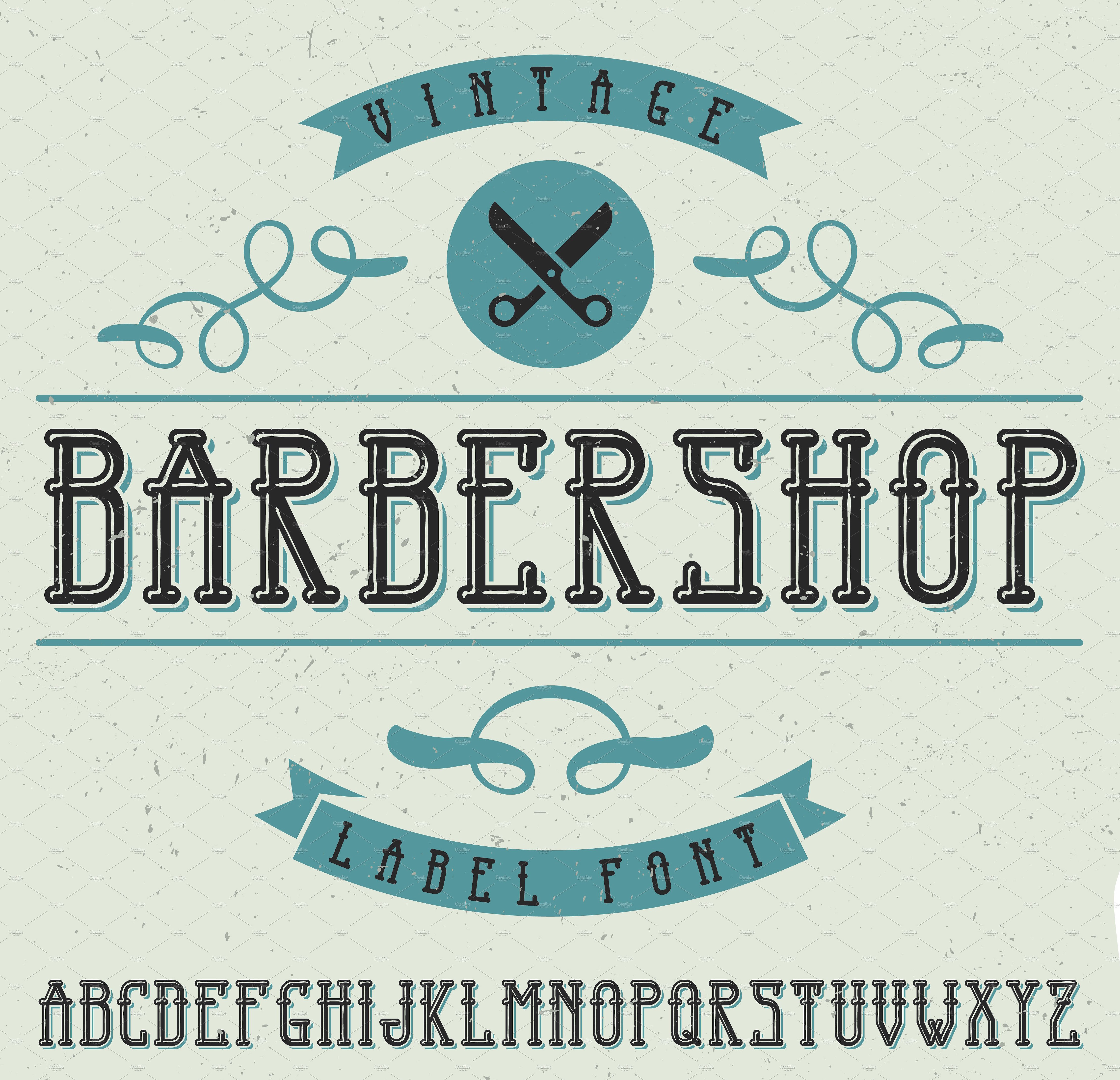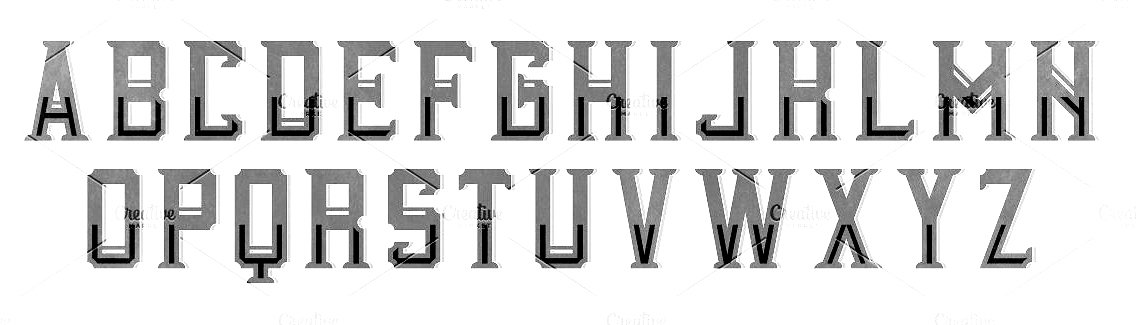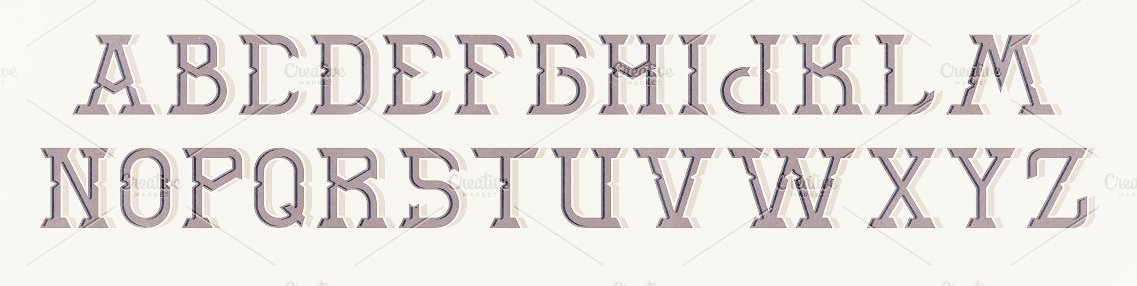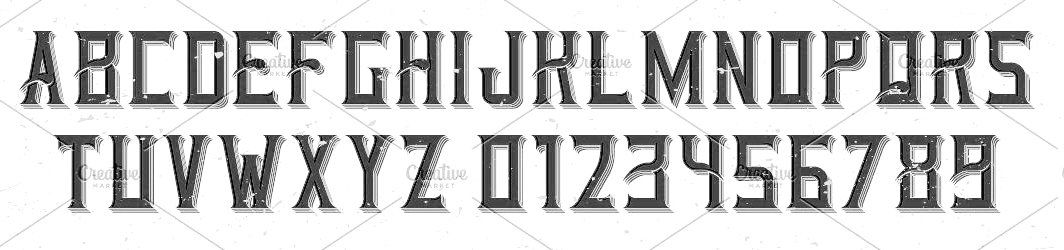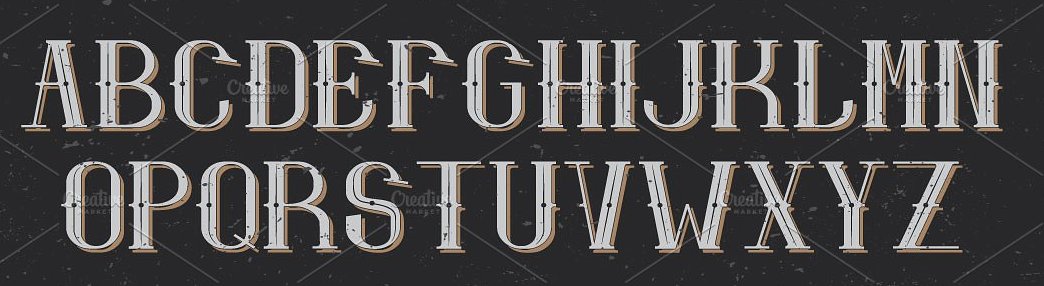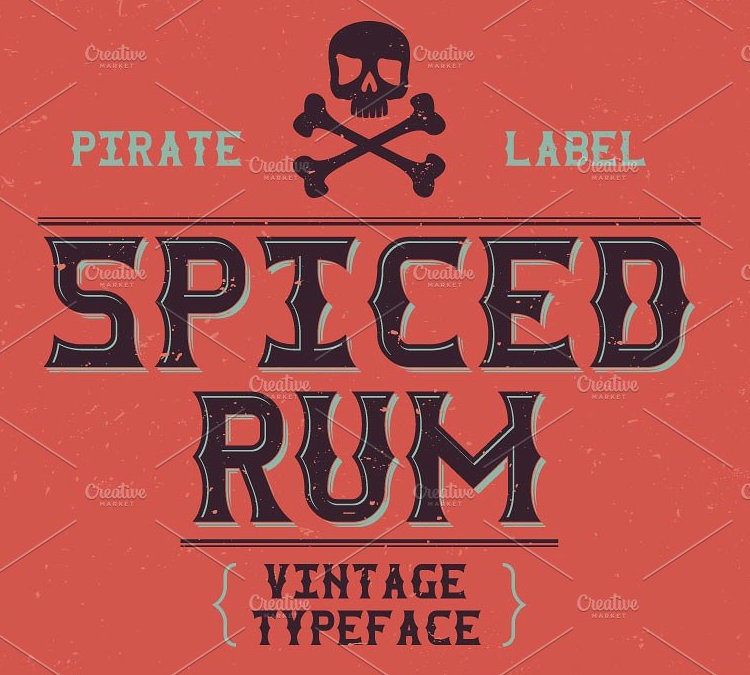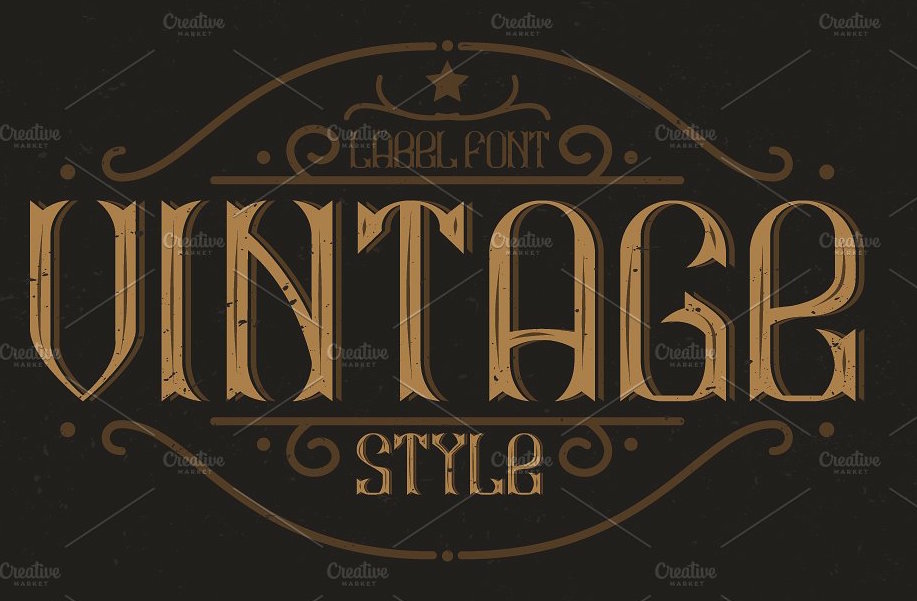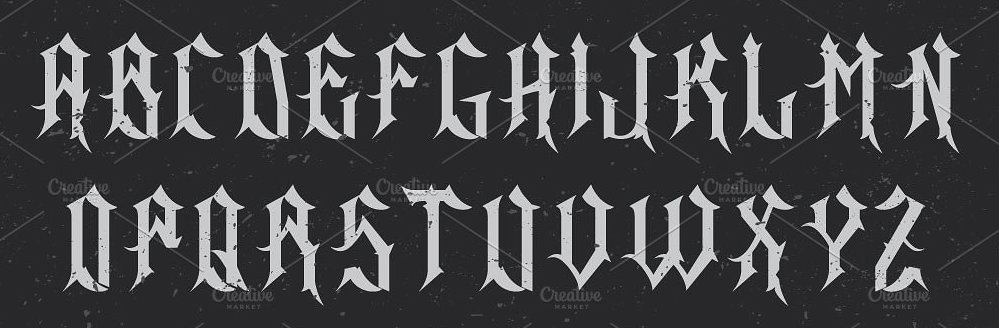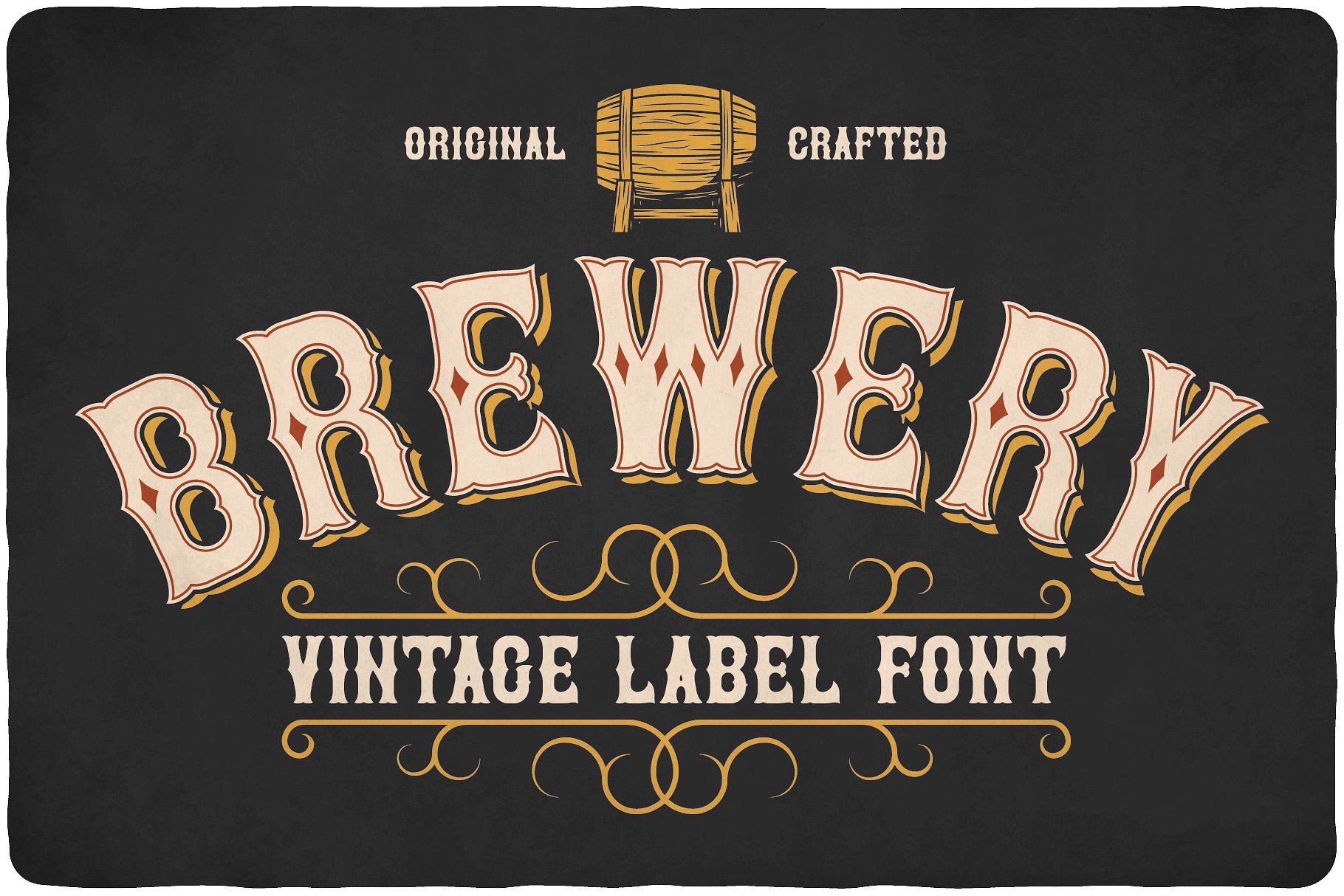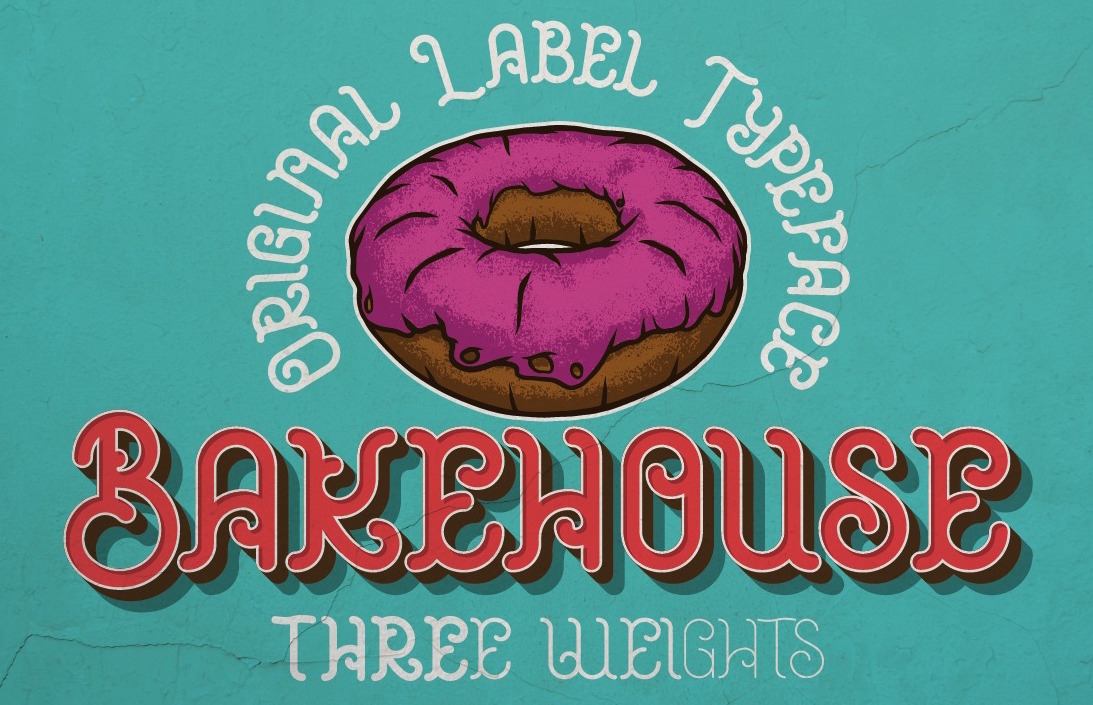
Vozzy (was: Oleg Vozny) [Oleg Voznyy]
Aka Vozzy, Oleg Vozny, and Anton Antipov. Dnipro, Dnipropetrovsk (was: Nepropetrovsk), Ukraine-based designer whose company is called Trivia. His typefaces from 2015: Ghost (a spurred typeface), Whiskey Label, Barber Label (shaded vintage font), Scotch Whiskey Label Font, Gouache, Hot Coffee, Mastodon (hipster typeface), Whiskey Shine, Bourbon Whiskey (a Tuscan spurred signage font), Bandidas (a Tuscan spurred label font), Finest Whiskey, Retro Disco, Tequila (a vintage spurred bottle label font), Tortuga Hand (a spurred tattoo font), Hand Drawn Font, Steampunk, Vintage hand Drawn Font, Modern Whiskey, Marine Whiskey, Old Label, Rock On Font, Chulkboard Sketch Font, Chalk Board Hand Drawn Font and Whiskey Label (vintage typeface).
His typefaces from 2016: Samurai (layerable oriental simulation type), Old Mariner (vintage signage type), Two Shots, Curls (layerable Victorian label font), Ginger Gin Label, Old Style Label (Victorian, layered), Motorcycle Gang, Absinthe (vintage labeling font family, with layering), Mystic Label, Bourbon Strong (a whiskey label font), Aged Whiskey, Bold Craft (vintage label font family for absinthe, brandy, whiskey, rum, gin and beer), Origami, Vintage (a Victorian signage typeface), Gangster (a layered Victorian signage font), Motor (+Shadow, +Shine: a spurred motorcycle / tattoo font family), Family Hand, Absinthe Label (Victorian signage font), Old Sailor (layered vintage typeface set), Old Barrel, BadBoy (hand-printed), Nautical, Sinister (Victorian), Heavy Metal, Darkness Whiskey (Victorian).
Typefaces from 2017: Blended Whisky Label, Adventure Vintage Label, Whiskey Original Label, Doncaster Vintage Label, Bourbon Special Label, Vintage Marine Label, Marine Whiskey, Alcohol Vintage Label, Virginia Vintage Label, Old Barrel Vintage Label, Tequila Vintage Label, Bubble Vintage Label, Vintage Classic Look, Bourbon Vintage Label, Handcrafted Old Style, Vintage Classic Look, Barber Vintage Label, Walsall Vintage Label, Original Tequila, Retro Style Label, Absinthe Vintage Label, Whiskey Vintage Label, Mystic Vintage Label, Castlecary Vintage Label, Real Estate Vintage Label, Whiskey Vintage Label, Rock And Roll Vintage Label, Blackburn Vintage Label, Tavern Vintage Label, Bourbon Vintage Label, Rock Star Vintage Label, Sandford Vintage Label, Norwich Vintage Label, Whiskey Glory, WireFont Vintage Label, Midieval Vintage Label, Barbershop Vintage Label, Summer Hippie, Bradford Vintage Label, Cartoon Vintage Label, Vintage Age, Retro Label, Stone Angry Look, Retro Alphabet Label, Tattoo Parlor, Brandy Vintage Label, Striped Vintage Label, Hit The Light Vintage Label, Music Album, Irish Whiskey Vintage Label, Northwood Vintage Label, Stitch Vintage Label, Innkeeper Vintage Label, Whiskey Vintage Label, Racer Label, Malt Whiskey Vintage Label, Marine Bay Vintage Label, Alcohol Vintage Label, New York label, Tequila Vintage Label, Portsmouth Label, Sunderland Label, Moonshine Label, Tavern Vintage label, Harbor Vintage Label, Peterborough Label, Blackpool Vintage label, Fresh Cartoon Look Label, Spiced Rum Vintage Label, Old Windsor Vintage, Team Spirit Label, Northamton Vintage, Saloon Label, Gold Rush Label, Rock and Roll Label, New Castle Vintage, Authentic Whiskey Label, Birmingham Vintage Label, Cognac Label, Hipster Label, Rock Star Label, Stockport Label, Barber Label, Colchester Label, WildForest Vintage Label, Brentford Vintage Label, Premium Beer Vintage Label, Lumberjack Vintage Label, Manchester Label, Richmond Label, Old Logger Label, Norwich Label, London Label, Liverpool, Liberty Label, Lancaster, Independence, Grand Reserve, GreatShot Label, Derby, Coventry Label, Coldwater Label, Brighton Label, Bourbon Label, Carlisle Label.
Typefaces from 2018: Brewery (vintage label font), Amber Whiskey (a great spurred vintage Western typeface family).
Typefaces from 2019: Coral Reef (monoline script), Sambuca, Original Absinthe (spurred), Tattoo Master, Horror Story (a gory dry brush script), Heavy Boxing (a vintage label font), Hawaii Beach, Green Mexican, Outer Space (a vintage label font), Aviation Cocktail (vintage), Bodybuilder (14 athletic lettering fonts), Biker Whiskey, Vintage Whiskey, Wanted Denim (weathered texture), Bandidas (vintage label style), Cosmic Lager, Spicy Taste, Farm House, Pirate Bay, Smokers, Quick Or Dead (Western, layered).
Typefaces from 2020: Falange (a 5-style skeletal bone font family), Western Whiskey, Big Wave (a vintage layered font family), Eight Cylinder, Whisky Trail, Brew House (a beer bottle blackletter), Cyberpunk, Beer Time (a vintage label font family), Bobber Motorcycles (a vintage label font), Fire Sauce (layerable), Space Vacation, Metal Core (a spurred blackletter metal band font), Outdoors (a vintage label font family), Bakehouse, Roots, Asgaard (a textured vintage label font), Speedster, Mountain Expedition, Junk Food (a vintage label font family), Old Biker (a vintage spurred label font).
Typefaces from 2021: Circus Sideshow (a spurred circus font), Vida Bandida (a tattoo font), Healthy Freak (a vintage sign painting sans), Tokugawa (inspired by Japanese), Seaman (a lava lamp font), Stuntman (a font duo, +Stencil and Stencil Paint), Road Rage (Tuscan), Unfair (a squarish all caps typeface), Race To Space (a vintage marquee font), Fun Baking (a condensed organic sans), Urban Ink (a prototypical tattoo font---the last tattoo font you will ever need?), Brewing Crafters (spurred, vintage).
Typefaces from 2022: Bistro (a vintage shadowed label font), Sport Bar (a spurred vintage label font), Time To Play (a vintage gaming label font), Happy Trip (psychedelic), Barely Legal (a vintage label font).